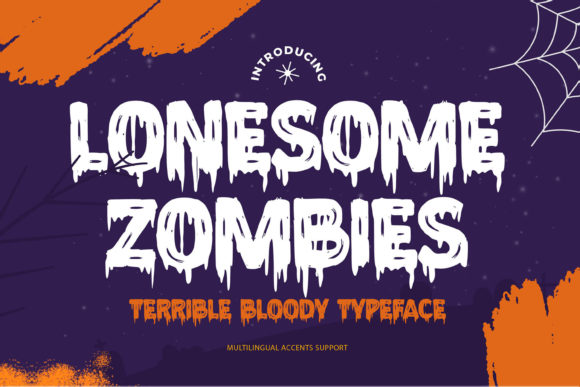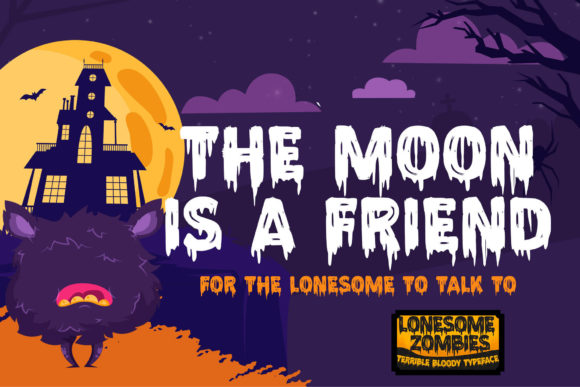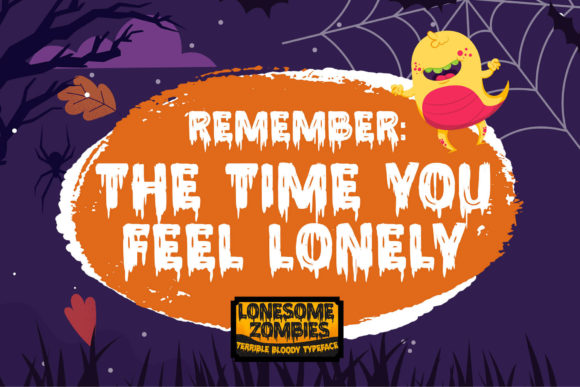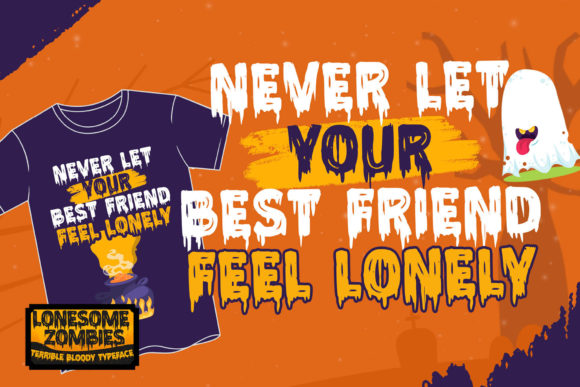
Lonesome Zombies Font
About the Lonesome Zombies Font
Explore the possibilities with Lonesome Zombies Font, a font that offers both beauty and functionality. Lonesome Zombies is a terrific, bloody decorative font with brush accents and a bold overall look. Best for Halloween posters, horror posters, children’s books, cartoon rough, comics, and projects that need horror vibes.
Its bold, playful energy makes it ideal for headlines, short impactful statements, and branding for products targeting a younger demographic or those with a playful, slightly edgy aesthetic. Avoid using Lonesome Zombies for body text or lengthy paragraphs; its decorative nature compromises readability in extended use. Consider pairing it with a clean sans-serif like Open Sans for contrast or a more whimsical script font such as Pacifico for a cohesive yet dynamic feel.
For brands, Lonesome Zombies works well for anything associated with Halloween, horror-themed merchandise, or children’s products with a fun, spooky twist. It would be less suitable for sophisticated or minimalist brands requiring a refined visual identity. Pairing with a geometric sans-serif like Bebas Neue can create a striking contrast, emphasizing the font’s unique brush strokes.
Lonesome Zombies Font Usage Examples
Lonesome Zombies Font Example